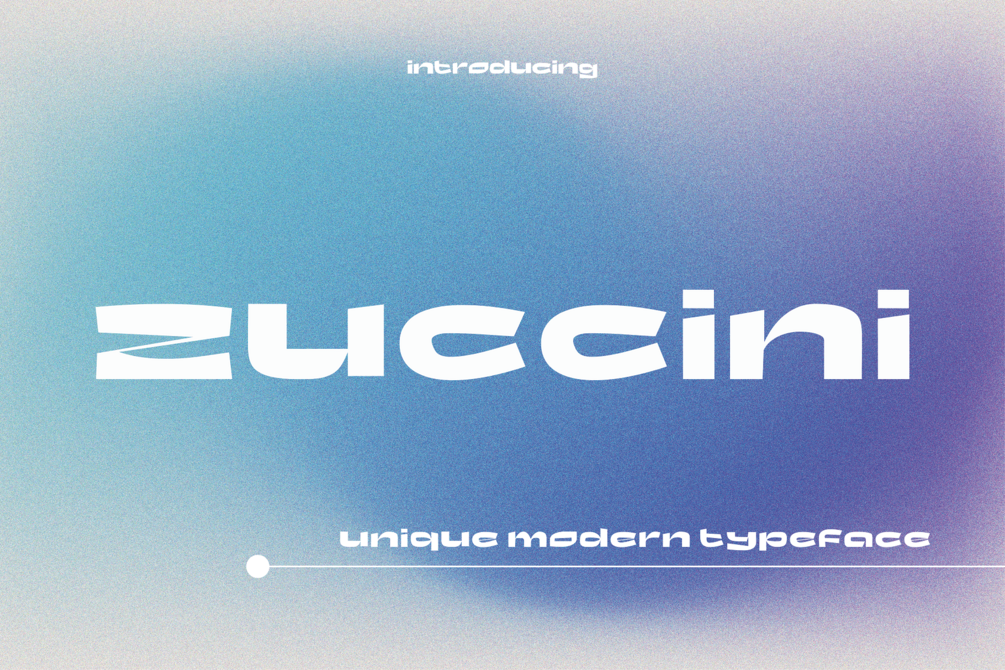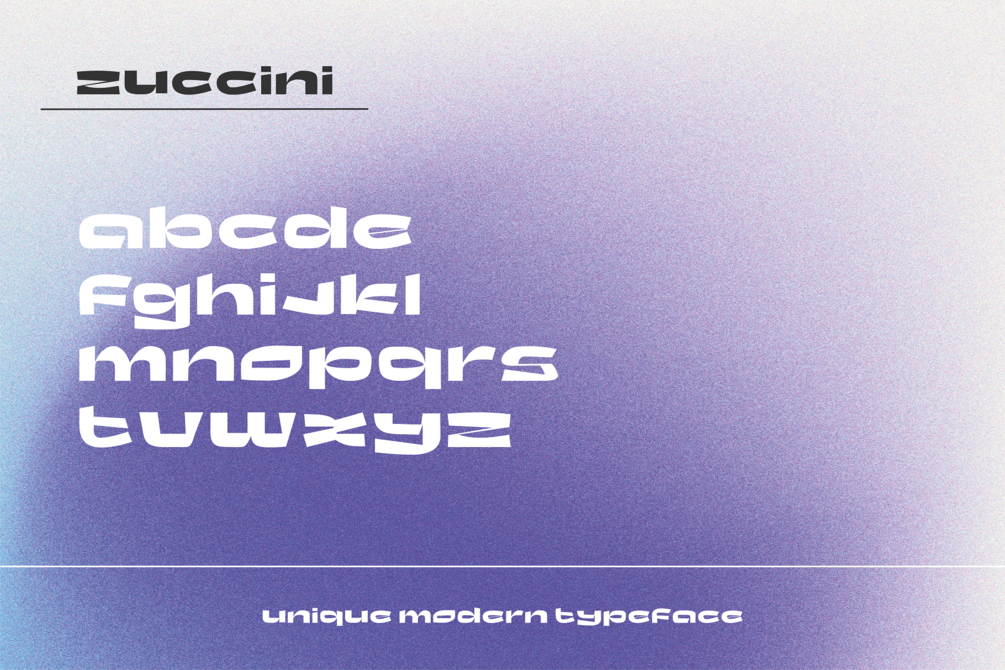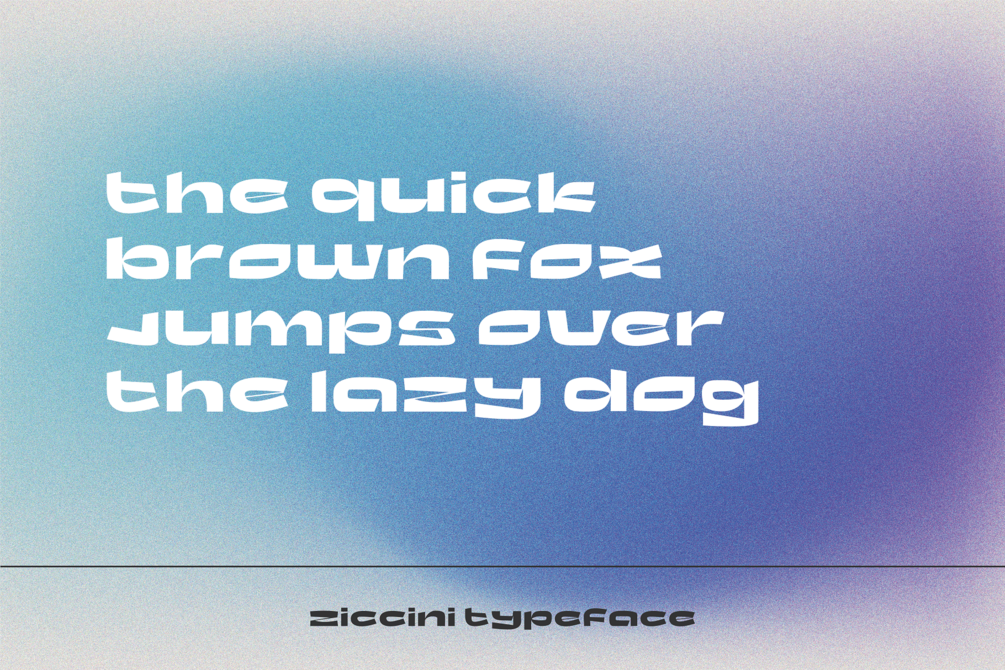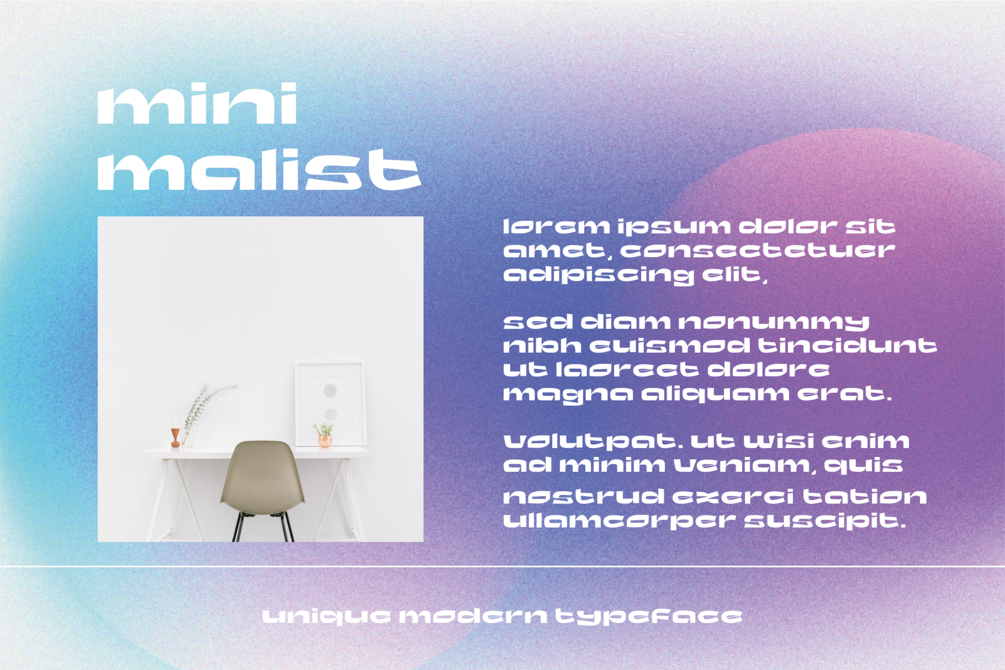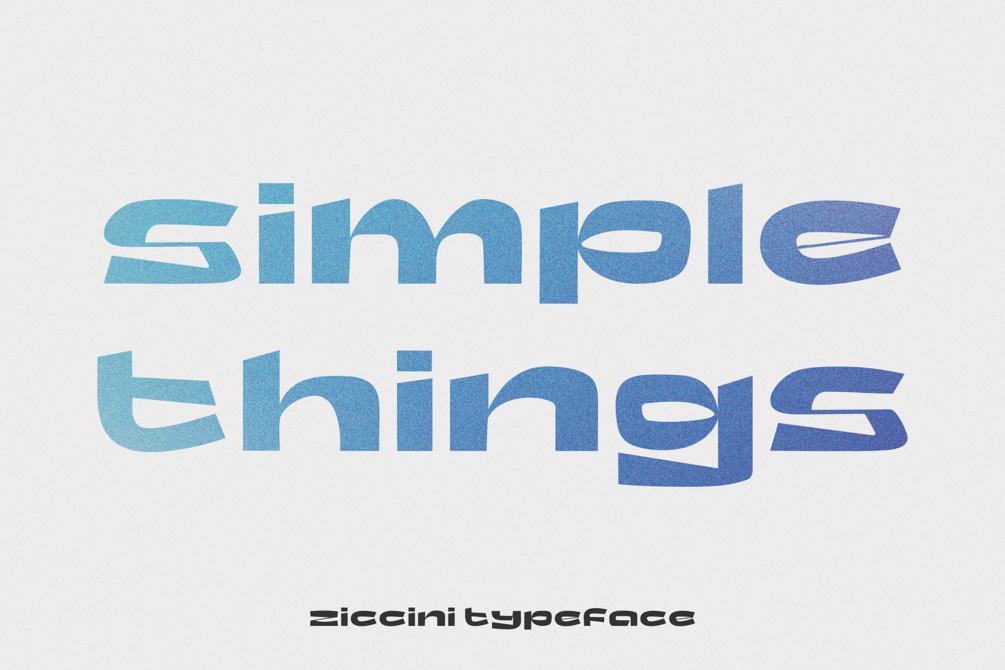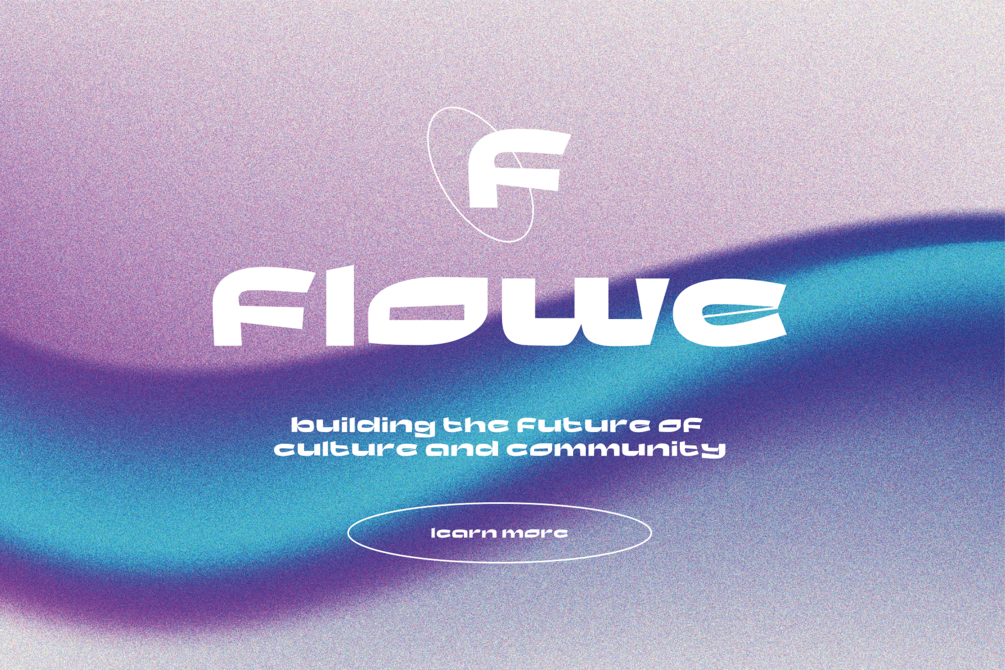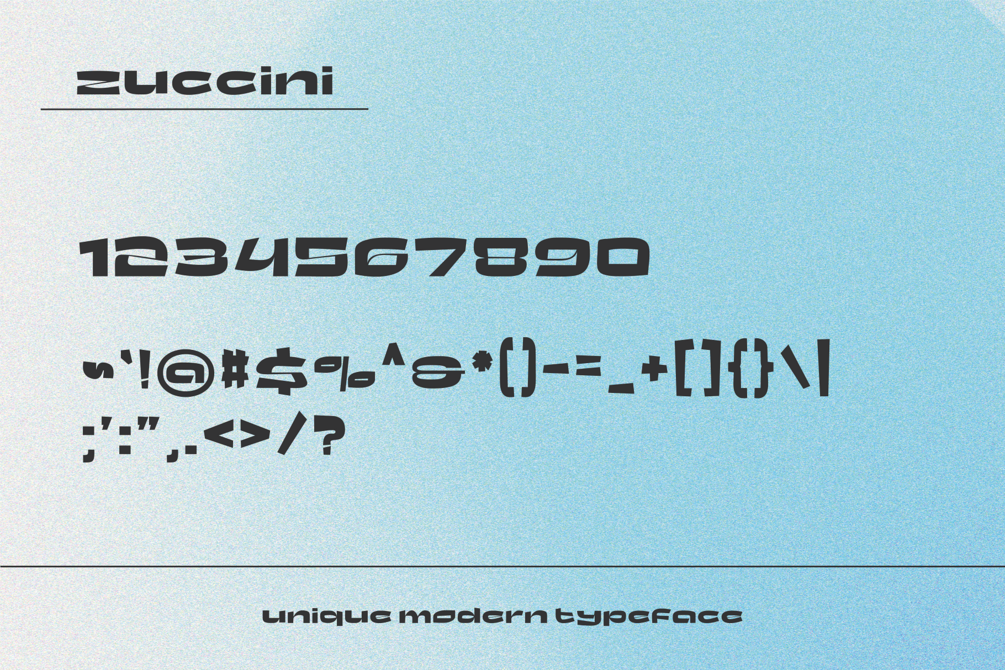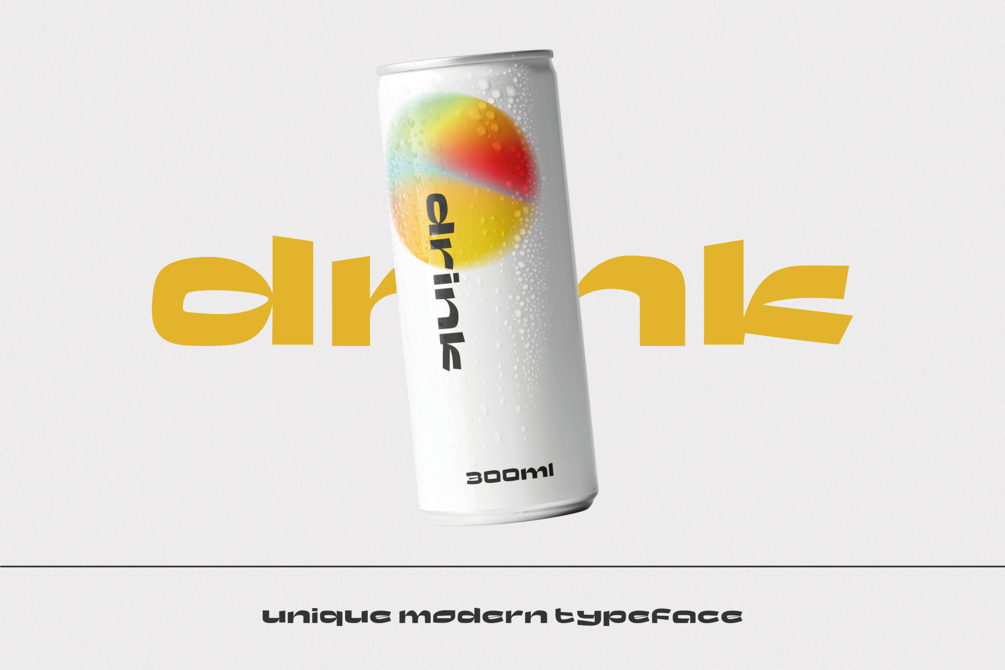
Zuccini - Unique Modern Typeface
Zuccini is a unique modern typeface created especially for sleek/minimal design projects. This gorgeous font is perfect for magazines, branding, social media, youtube, packaging, fashion, posters, headlines, and much more. With stylish looks, Zuccini will make your designs stand out and get noticed.